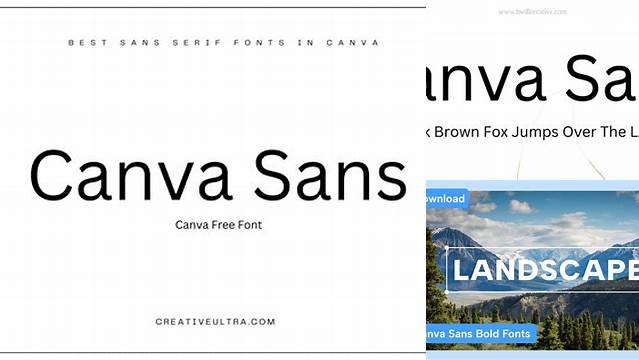
Hey guys! If you're on the hunt for a sleek, modern font, you've probably stumbled across Canva Sans. It's everywhere, and for good reason! It's clean, readable, and just looks good. And the best part? You can get the Canva Sans Regular font free download TTF! In this article, we'll dive into everything you need to know about grabbing this awesome font and using it for all your creative projects. Let's get started, shall we?
What Exactly is Canva Sans Regular?
Alright, let's break it down. Canva Sans Regular is a versatile sans-serif font designed by Canva, the popular online design platform. It's become a staple for many designers because of its simplicity and clarity. Think about it – it needs to work across a huge variety of designs, from social media posts to presentations. This means it needs to be highly readable, adaptable, and just generally pleasing to the eye. That's exactly what Canva Sans Regular delivers. The 'Regular' in the name signifies the standard weight, not too bold, not too light – just right for body text and headings alike. It's a workhorse font, perfect for pretty much anything. It doesn't scream for attention, but it's confident and capable. When you see it, you know you're looking at something polished. This font is a testament to Canva's design philosophy: making design accessible and, well, beautiful, for everyone. And because it's available as a free download TTF, it's even more accessible. Get ready to elevate your designs, peeps!
The Design Philosophy Behind Canva Sans
Canva Sans Regular wasn't just thrown together. It was created with a specific design philosophy in mind. This philosophy centers around accessibility, simplicity, and visual appeal. The designers wanted a font that was user-friendly and would blend seamlessly into various designs, rather than dominating them. You can see this in the font's clean lines and balanced letterforms, which ensure readability even at smaller sizes. The design aims to support the content without distracting the viewer. Furthermore, Canva Sans is designed to convey a sense of professionalism and modernity. It's a font that communicates trust and reliability, whether it is on a business card or a website. It's not overly stylized or trendy, which means it remains relevant over time, making your designs feel timeless. The deliberate choices in kerning and spacing contribute to the overall harmony of the font, enhancing the user experience. Canva Sans is more than a font; it's an extension of Canva's core values.
Why Choose Canva Sans Regular?
Choosing the right font can make or break your design. Canva Sans Regular offers several advantages that make it a great choice for various projects. First, its clean and straightforward design enhances readability, which is crucial for conveying your message effectively. Second, its versatility allows it to be used in various contexts, from headings to body text, ensuring a cohesive look across your designs. Third, its availability as a free download TTF makes it accessible to everyone, regardless of budget. This makes it perfect for personal and commercial projects alike. Fourth, the font's professional appearance adds a touch of sophistication to your designs, making them stand out. Using Canva Sans Regular can also improve the branding of a project as it is recognized for being a staple font for many creators. Finally, its neutral style complements other design elements, ensuring your message remains the focus. The balanced aesthetics of the font provide a perfect backdrop for the content.
Using Canva Sans Regular in Your Designs
Alright, you’ve got the Canva Sans Regular font free download TTF. Now what? Let's get to the fun part – actually using it! It's a versatile font, meaning it fits with a ton of different styles. From clean and modern to slightly more playful, Canva Sans Regular is a great choice. Its simplicity makes it perfect for all sorts of design projects. Ready to be inspired?
Canva Sans Regular for Branding
Canva Sans Regular is a solid choice for branding. It's clean, modern, and conveys professionalism, which makes it suitable for businesses that want to project reliability and trust. You can use it for your logo, business cards, and website. Due to its readability and clarity, it ensures that your brand message is easy to read across all platforms and devices. The font works well in various contexts, from a minimalist brand to a more complex one. Because the font is neutral, it complements other design elements without competing for attention. Its versatility also allows it to pair well with different font weights and styles. A consistent brand identity is essential to leave a strong impact, and Canva Sans Regular can help to create it. The font’s wide accessibility guarantees it can be used without limitations, contributing to consistent brand communication and easy design.